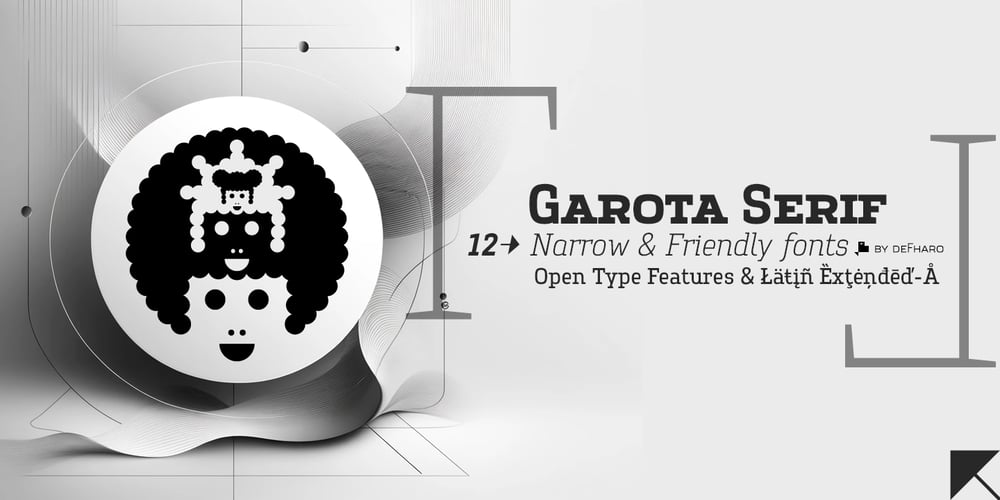
Garota Serif Font Family was designed by Fernando Haro and published by deFharo. Garota Serif contains 12 styles and family package options. Garota Serif is a new typeface family that captures the essence of youth and freshness with an organic and elegant style. Inspired by natural forms, this serif typeface combines soft curves and a slightly narrow proportion to create a friendly design with exceptional legibility, achieving the perfect balance between sophistication and accessibility. Each character has been carefully crafted to convey a sense of lightness and fluidity, making it ideal for captivating readers at first glance.Technical and Aesthetic Features Garota Serif features a slightly narrow (Narrow) proportion that adapts effectively to different design contexts while maintaining excellent legibility at all times. The generous metrics have been configured to ensure a pleasant reading flow and consistent visual rhythm, while the kerning has been meticulously adjusted to provide clarity and precision in every word. This balance between characters ensures a pleasant reading experience, whether for long texts or impactful headlines.The family includes four weights—Light, Regular, Medium, and Bold—and three distinctive styles—Roman, Italic, and Small Caps—allowing exceptional versatility in its use, and offering a rich and cohesive typographic experience that perfectly adapts to the needs of editorial and advertising design.In addition, Garota Serif includes advanced OpenType features that enhance its expressive capabilities. These features offer alternate letters and numbers, monetary symbols, arrows, or dynamic fractions, providing designers with a powerful tool for projects that require a touch of sophistication, enabling them to create unique and effective typographic compositions.